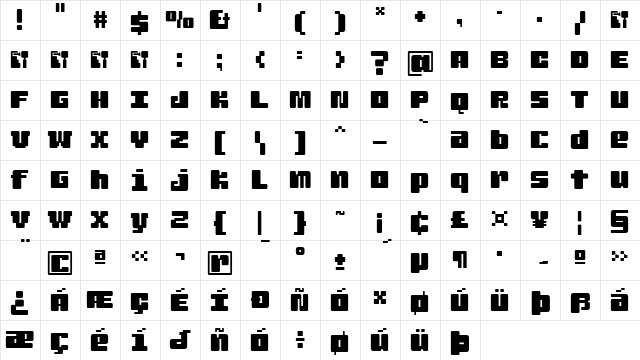
Judera Ring Regular
| Foundry | deFharo |
| Designer | Fernando Haro |
Design Context for Judera Ring Typeface
Judera Ring is a composed and adaptable typeface that performs quietly and consistently across a wide range of design contexts.